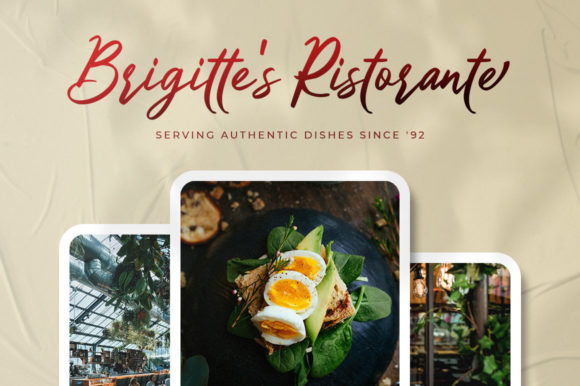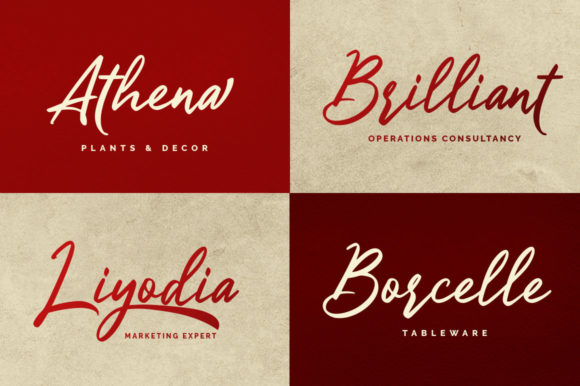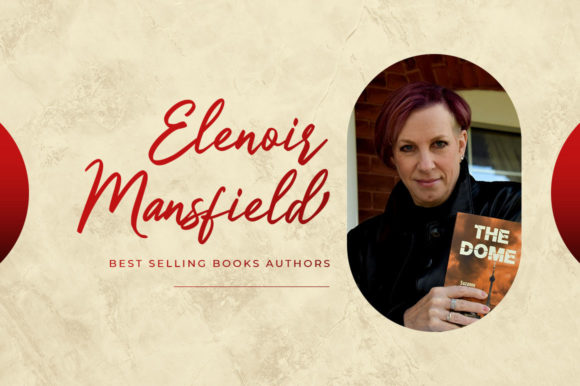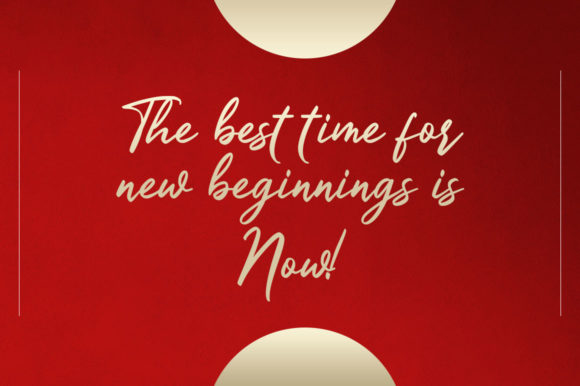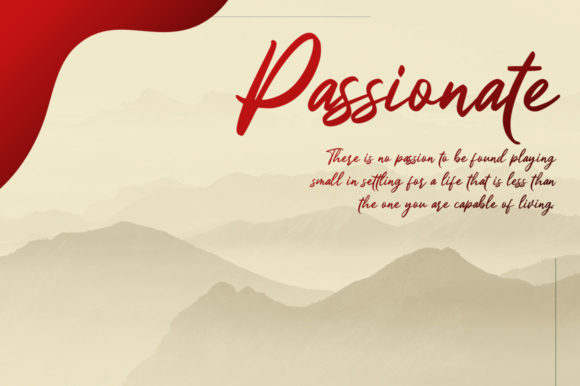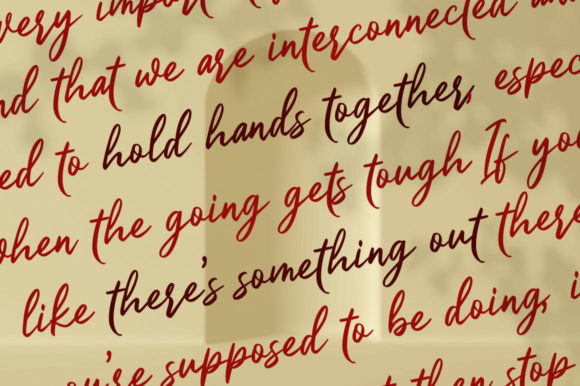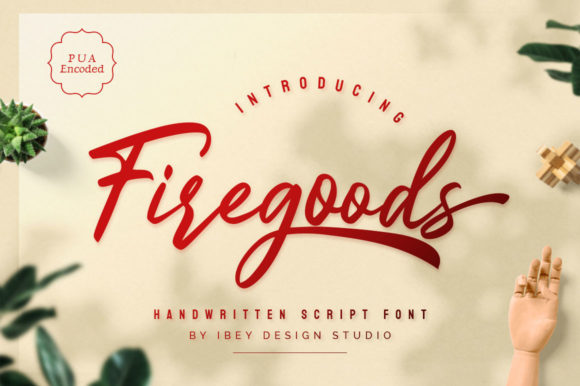
Introducing Firegoods Font: Elevate Your Designs with a Dance of Cursive Elegance
Are you on the hunt for a font that injects a dose of creativity and whimsy into your designs? Look no further than Firegoods, a stunning cursive, paint-brushed script font that is sure to make your projects stand out from the crowd. With its unique charm and effortless elegance, Firegoods is the perfect addition to any designer’s toolkit.
The Unique Charm of Firegoods
Firegoods boasts characters that seem to dance along the baseline, giving your text a lively, dynamic feel that’s hard to ignore. This beautiful font is meticulously crafted to mimic the fluid strokes of a paintbrush, lending a touch of warmth and personality to any design. Whether you’re working on a branding project, crafting a social media graphic, or designing an invitation, Firegoods is sure to add that special something that elevates your work from ordinary to extraordinary.
PUA Encoding for Easy Access to Glyphs and Ligatures
One of the standout features of Firegoods is its PUA (Private Use Area) encoding. This means that accessing the font’s extensive range of glyphs and ligatures is incredibly straightforward. With PUA encoding, you can easily tap into the full creative potential of Firegoods, effortlessly incorporating the intricate details and flourishes that make this font so special. No more tedious searching for the right character or spending hours trying to get your design just right – with Firegoods, it’s all at your fingertips.
Firegoods is more than just a font – it’s a tool for creative expression. For designers, it offers a fresh and exciting way to bring personality and flair to client projects. For crafters, it provides a beautiful way to add a personal touch to DIY projects, from handmade cards and invitations to custom signs and decor. The versatility of Firegoods means it can be used across a wide range of applications, making it an invaluable addition to your creative arsenal.
Firegoods is more than just a font – it’s a key to unlocking a world of creative possibility. Its unique, cursive script and paint-brushed elegance make it the perfect choice for designers and crafters looking to add a touch of whimsy and sophistication to their work. With PUA encoding for easy access to glyphs and ligatures, Firegoods is a practical choice as well as a beautiful one. So why wait? Download Firegoods today and watch your designs come to life in a whole new way.
- What is Firegoods Font?
- Firegoods is a cursive, paint-brushed script font featuring characters that seem to dance along the baseline, perfect for adding creativity and elegance to designs.
- What is PUA Encoding?
- PUA (Private Use Area) encoding allows for easy access to a font’s glyphs and ligatures, making it simpler to use special characters in your designs.